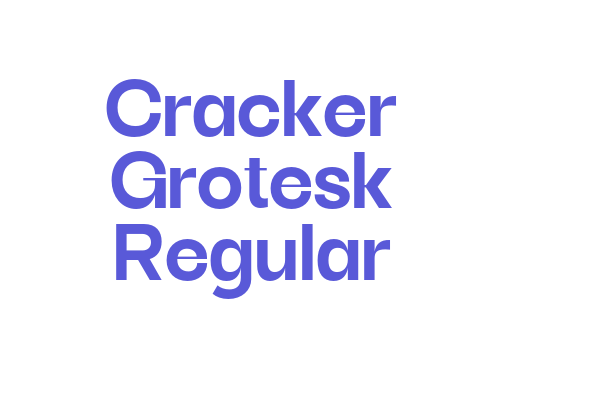
Cracker Grotesk Regular is a basic sans-serif font designed by Vampstudio. With a clean and modern style, this font is perfect for a wide range of design projects. Its simplicity and readability make it ideal for use in branding, advertising, and editorial design.
Font Name: Cracker Grotesk Regular
Designer: Vampstudio
Font Family: Cracker Grotesk